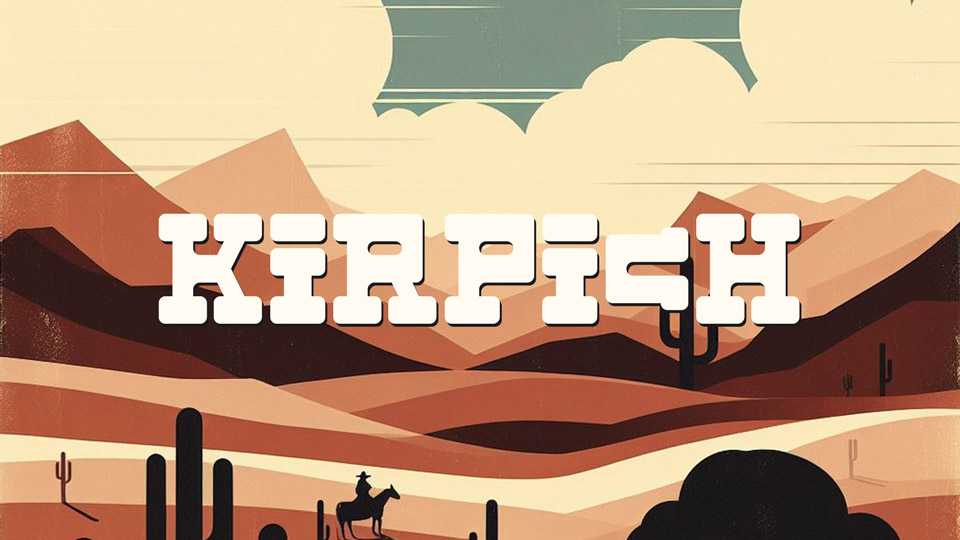
Download Kirpich font, a bold and playful Western-style typeface that brings a retro vibe to your designs. Kirpich font is a lighthearted homage to the rugged charm of cowboy aesthetics, combining bold letterforms with playful details reminiscent of the Old West.